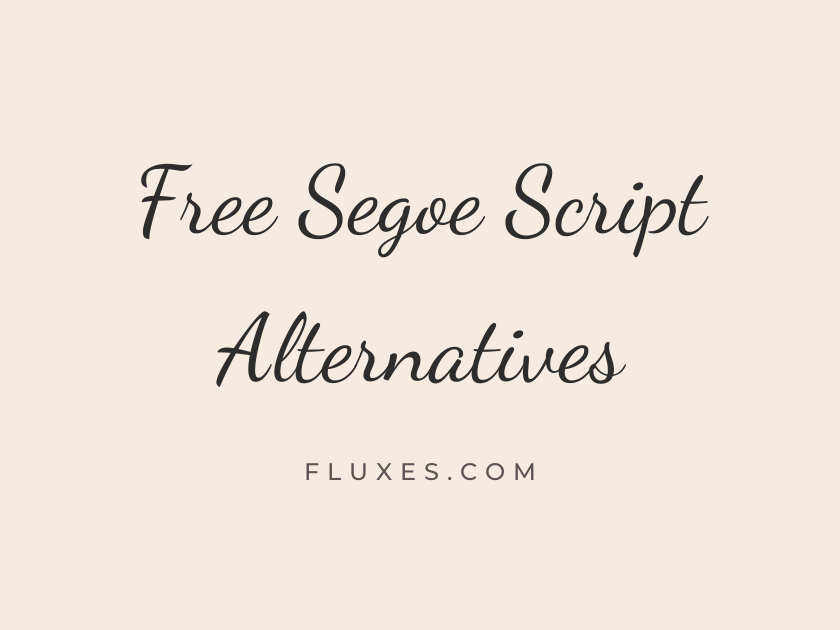
15 Best Free Fonts Alternatives to Segoe Script
Segoe Script has long been the default choice for anyone wanting a friendly, handwritten touch inside a Microsoft Office document, but it is a proprietary system font, which means it is not something you can legally embed on a website or bundle into a client project. Designers searching for free fonts similar to Segoe Script usually want that same casual, rounded cursive feel, something that reads as genuine handwriting rather than a formal calligraphic flourish. Google Fonts has a deep bench of script and handwriting typefaces that capture that same warmth, and many of them are better suited to web use, greeting cards, packaging, and social graphics than the original ever was.
Dancing Script is probably the single closest match in spirit to Segoe Script: bouncy, rounded, and legible even at body-text sizes. Its connected letterforms swing without tipping into stiff formality, which makes it a dependable pick for invitations, logotypes, and greeting card lettering. It has become something of a default itself among free script fonts, so pair it with a plain sans body copy to keep the overall design from feeling too on-the-nose.
Originally drawn for a surf shop logo, Pacifico carries a laid-back, brush-pen energy that feels more West Coast than corporate memo. It works well as a headline script for branding, packaging, and social posts where a bit of personality is welcome. At small sizes the thick, rounded strokes can lose crispness, so reserve it for display use rather than long passages of text.
Satisfy has a slightly rougher, more marker-like texture than Dancing Script, which gives it a spontaneous, unpolished charm. It suits casual signage, coffee packaging, and journal-style graphics where a too-perfect script would feel out of place. Because its baseline wobbles naturally, it reads as authentic handwriting rather than a vector-smooth imitation.
Courgette sits between a script and a rounded sans, with letterforms that lean and loop just enough to feel handwritten without becoming hard to read. It has a cheerful, slightly retro quality that suits bakery branding, kids’ products, and casual invitations. Its moderate weight also makes it more forgiving in smaller UI labels than thinner scripts.
Caveat looks like genuine ballpoint handwriting, the kind you’d find in a notebook margin rather than on a formal card. That makes it a strong choice for sticky-note graphics, annotation overlays, and any design that wants to feel personal and unfussy. It pairs naturally with clean grotesque sans fonts, letting the handwriting moments stand out against a structured layout.
Marck Script leans a touch more refined than most casual alternatives here, with smoother curves and slightly more consistent proportions. It still reads as handwriting rather than engraved calligraphy, which keeps it approachable for wedding stationery, certificates, and quote graphics. Designers who like Segoe Script’s roundness but want something a shade more polished often land here.
This one looks exactly like it sounds, quick, upright handwriting dashed off with a felt-tip pen. Shadows Into Light works best in short bursts: captions, stickers, hand-lettered callouts layered over photography. It is not a font for paragraphs, but as an accent it brings an immediate, informal energy.
Homemade Apple mimics the loose, slightly uneven strokes of a felt marker, complete with the kind of imperfections real handwriting has. It carries a nostalgic, scrapbook feeling that suits diary-style blogs, craft packaging, and DIY project graphics. Use it sparingly and at a generous size, since its texture can turn muddy when set small.
Reenie Beanie
Reenie Beanie has a thin, energetic scrawl that feels closer to a ballpoint pen than a brush, giving it a distinctly casual, almost childlike charm. It is well suited to margin notes, comic-style captions, and playful headline treatments where legibility at large sizes matters more than polish. It is not the font to reach for anywhere near body copy.
Kalam originated as part of a project to bring genuine Indian handwriting styles to the web, and it shows in its natural, slightly irregular rhythm. Its multiple weights give it more flexibility than many script fonts, so it can carry short headings as comfortably as handwritten-style captions. It reads as warm and human rather than decorative, which fits the same everyday, informal niche Segoe Script was built for.
Handlee
Handlee is rounder and more compact than most handwriting fonts on this list, closer to careful print handwriting than a flowing cursive. That restraint makes it unusually easy to read in longer stretches, so it can handle short paragraphs of body text without straining the eye. It is a practical choice when the design calls for a handwritten feel but still needs to communicate clearly.
Test at the actual size you plan to use. Many handwriting fonts look charming at large display sizes but blur together once shrunk into a caption or button label.
Any of these free Google Fonts options can stand in for Segoe Script without the licensing headache, and most bring a bit more character and web-readiness to the table besides.